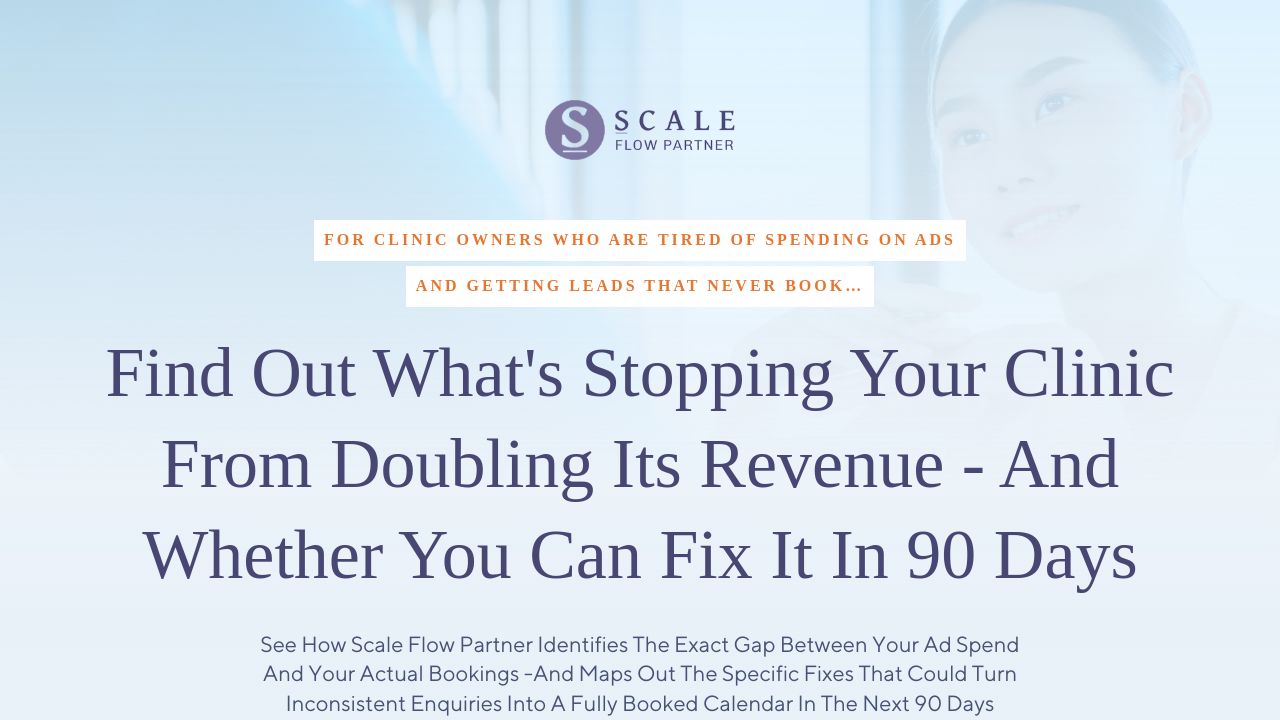
scaleflowpartner.com: What fonts does Scaleflowpartner use? - Roboto, Inter, Open Sans
What fonts does Scaleflowpartner use?
At scaleflowpartner.com, the choice of fonts plays a crucial role in connecting with clinic owners facing challenges like no-shows and ad spend inefficiencies. The website prominently features Roboto for its clean and versatile appearance, along with Inter, which enhances readability. Open Sans adds a welcoming touch, while custom fonts like David Libre and Font Awesome icons enrich the visual identity. Together, these fonts create an engaging experience tailored for their audience.
Frequently asked questions about Scaleflowpartner.com's fonts
What fonts does scaleflowpartner.com use?
scaleflowpartner.com primarily uses Roboto, Inter, and Open Sans, along with custom fonts like David Libre and Font Awesome for icons.
How do the fonts on scaleflowpartner.com compare to alternatives?
Roboto and Open Sans are widely appreciated for their legibility in digital formats, while Inter is designed for high readability in UI contexts, making them great choices for websites.
What styles and weights are available for these fonts?
scaleflowpartner.com utilizes a range of weights for Roboto and Open Sans, from 100 to 900, providing flexibility in design. Inter also offers multiple weights for varied emphasis.